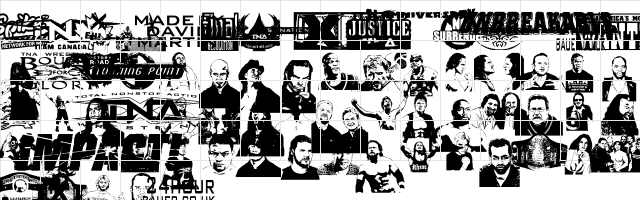
TNA Bound for Glory Regular
Design Context for TNA Bound for Glory Typeface
TNA Bound for Glory is a composed and adaptable typeface that performs quietly and consistently across a wide range of design contexts.